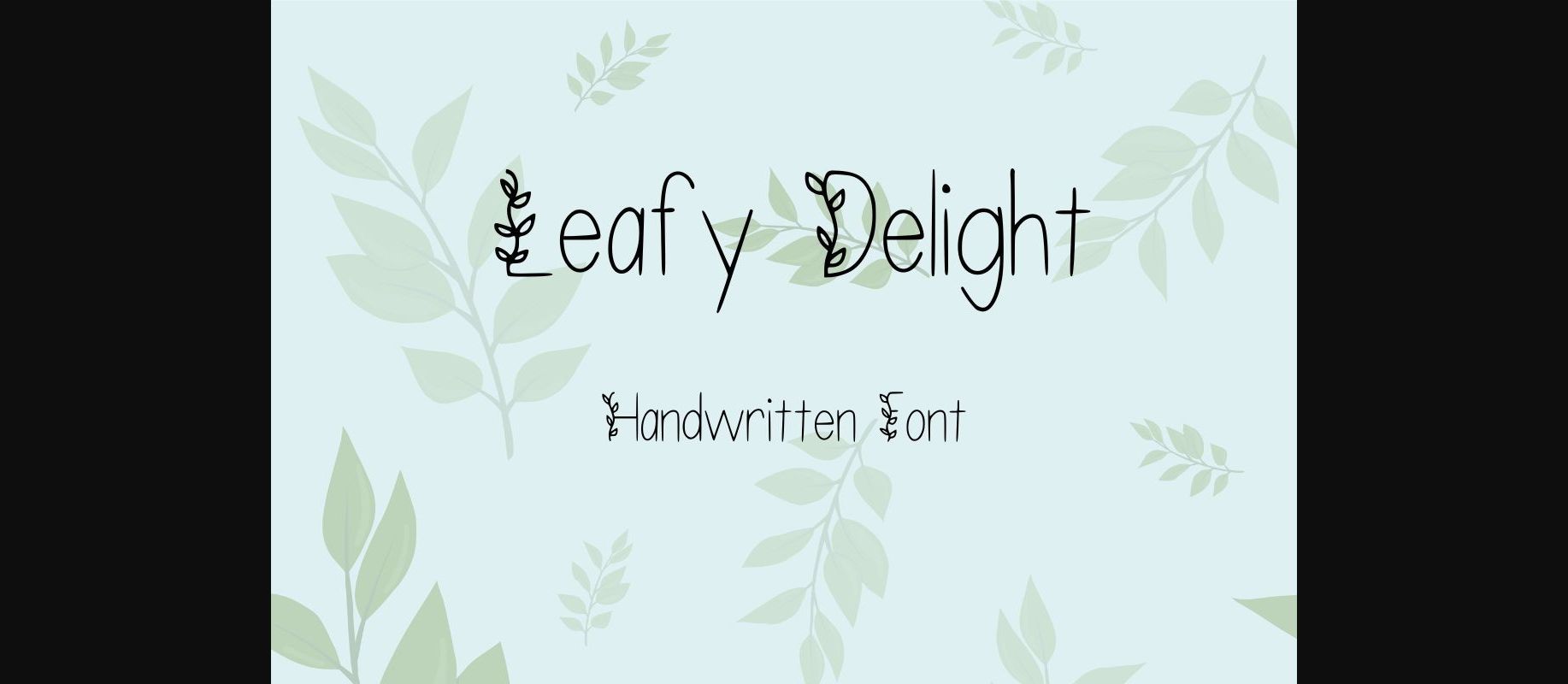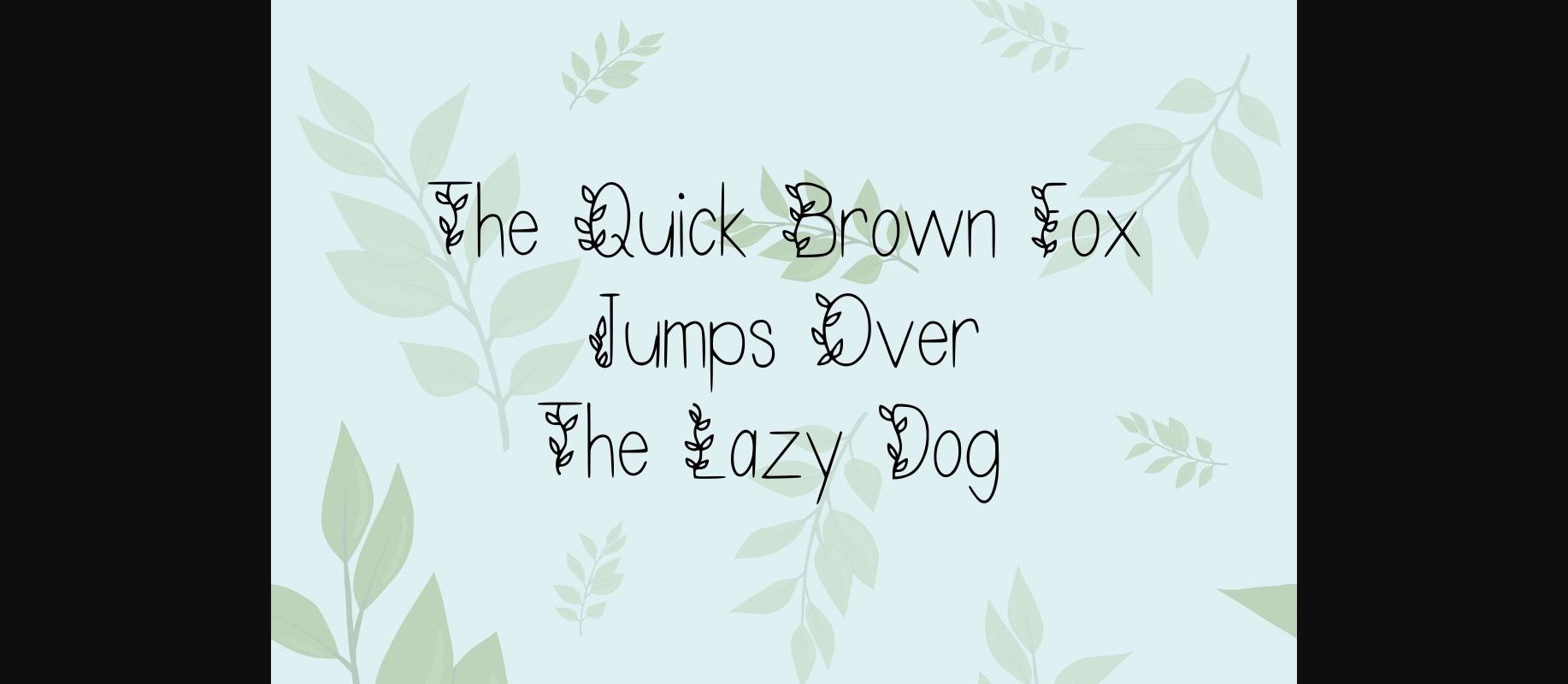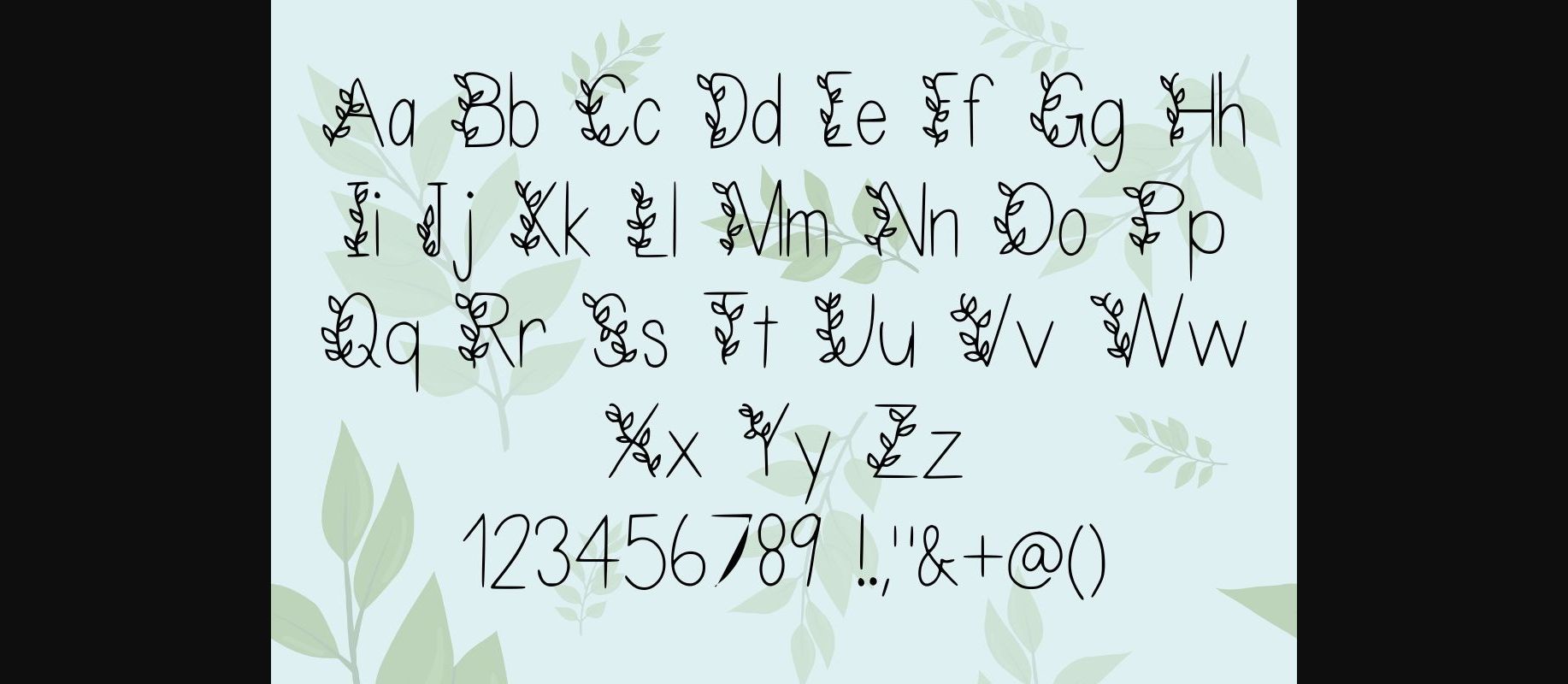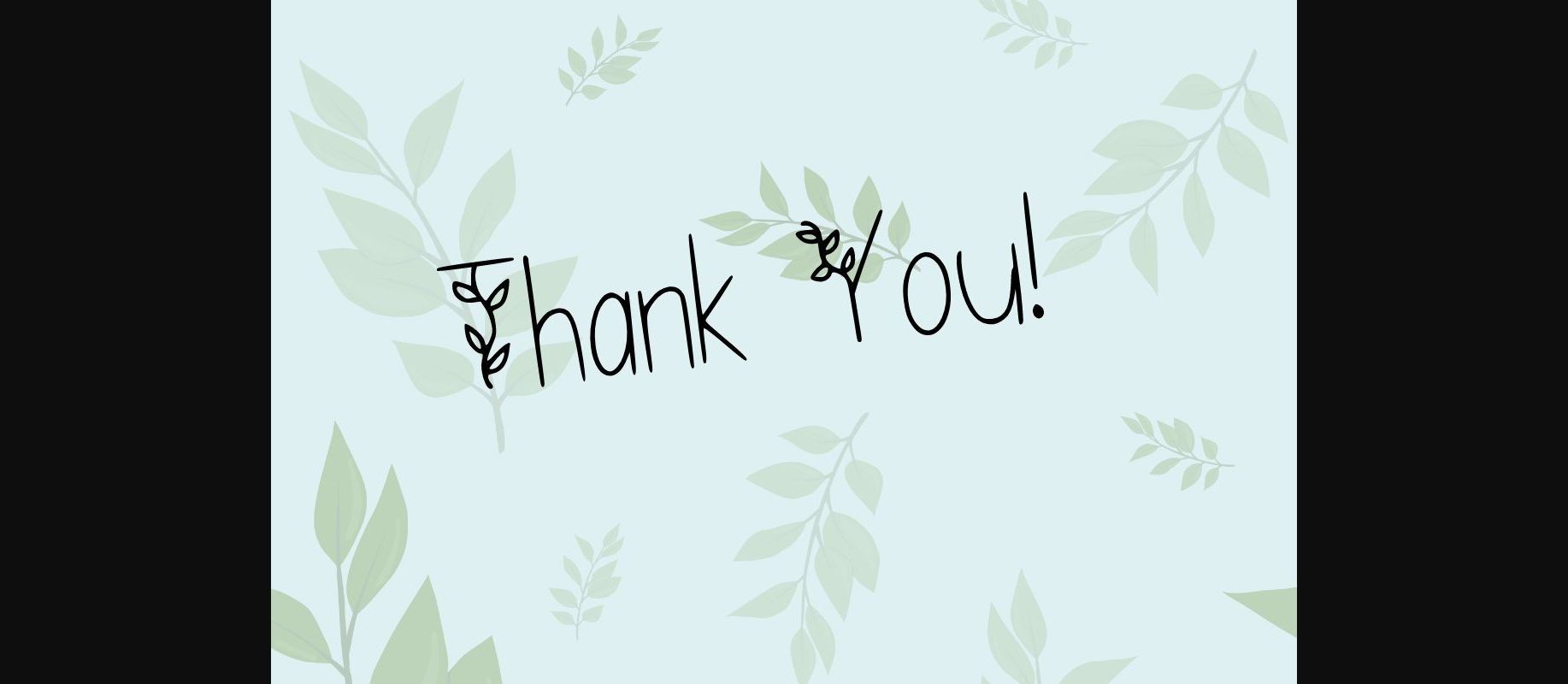
HomeDecorative FontsLeafy Delight Font Decorative Fonts Leafy Delight Font FacebookXPinterestWhatsApp 1 of 6 ... Leafy Delight Font Poster 2... Leafy Delight Font Poster 3... Leafy Delight Font Poster 4... Leafy Delight Font Poster 5... Leafy Delight Font Poster 6... About Leafy Delight Font Leafy Delight font adds a simply pretty flare to your creative projects. It is perfect for wedding invitations, scrapbooking, journaling and much more! DOWNLOAD NOW People also explored Ginonger Font Scream Halloween Font Harmonious Font Faber Gotik Font Sadar Senso Font Cute Deer Font Search Party Piano Teacher Script With Harmony Feel Blankside Modern Calligraphy Font 411 0 TagsLeafy Delight Font Previous articleTrust FontNext articleAirosol Spray Graffiti Font LEAVE A REPLY Cancel reply Comment: Please enter your comment! Name:* Please enter your name here Email:* You have entered an incorrect email address! Please enter your email address here Website: Save my name, email, and website in this browser for the next time I comment. Personal Use Free Shnobel Personal Use Free Read more about this font Scarlove Personal Use Free Read more about this font Gila Personal Use Free Read more about this font Elsabetha Personal Use Free Read more about this font BLOG Using Fonts in Digital Marketing: Tips to Strengthen Your Brand Identity In the realm of digital marketing, every visual element plays a crucial role in shaping a brand's identity, and fonts are no exception. The... How to Cut Any Font on Cricut: Convert a Font to SVG (Free) Elegant Wedding Invitation Fonts – Handwritten & Script Fonts Transform Your Website: Elevate Your Typography with 7 Best Web Font Generators